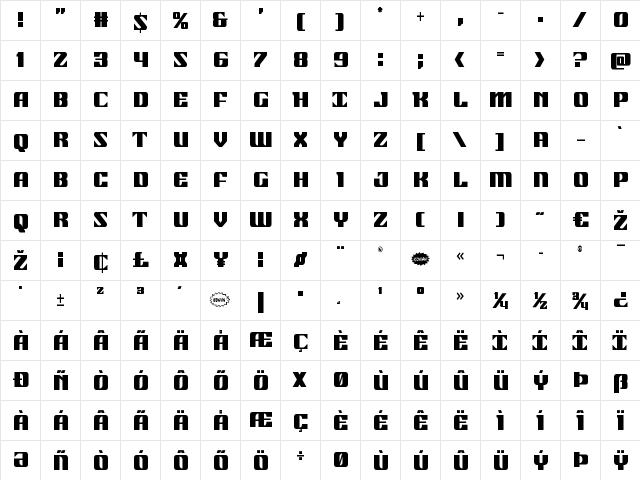
21 Gun Salute Condensed Condensed
Design Context for 21 Gun Salute Condensed Typeface
21 Gun Salute Condensed is a composed and adaptable typeface that performs quietly and consistently across a wide range of design contexts. The condensed width makes it efficient for tight spaces without sacrificing legibility.